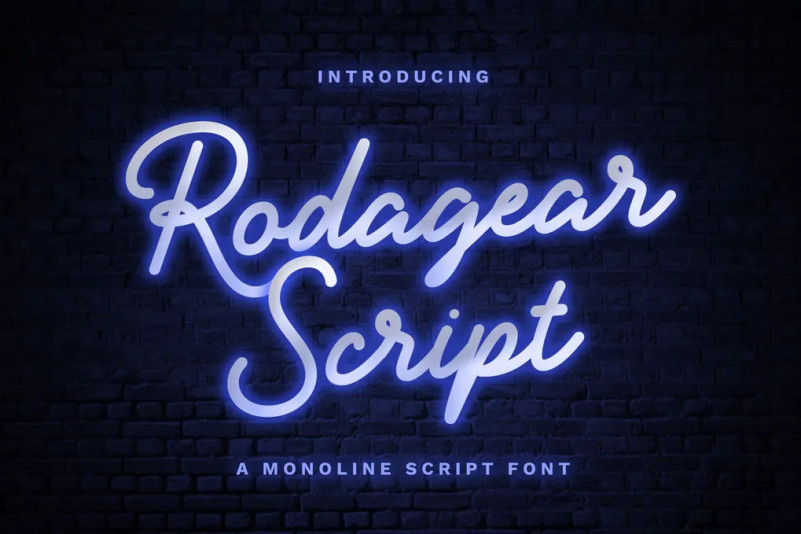
Rodagear Font
Introducing Rodagear Script was inspired by Neon light and retro business sign — Great for use in logo, titles, branding, packaging, or text overlay to any background picture, Rodagear Script will make a gorgeous addition to your type library!